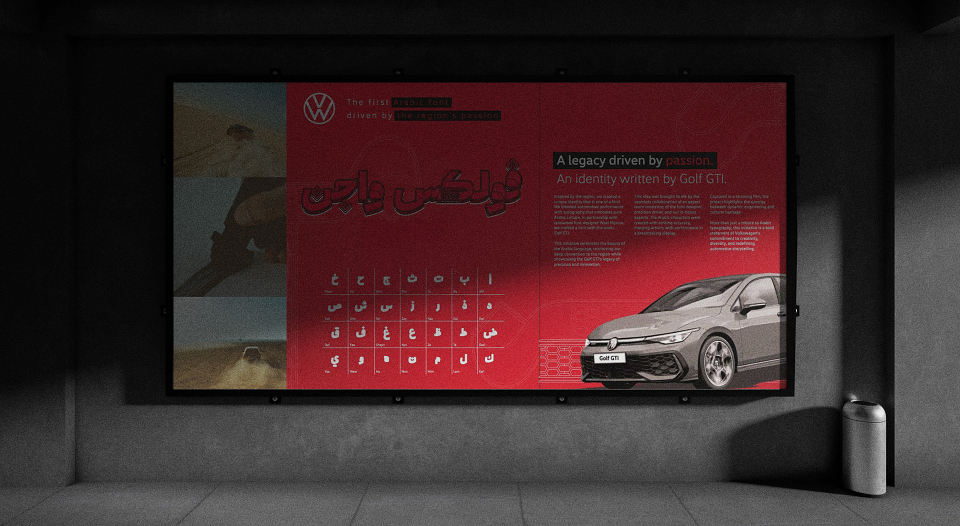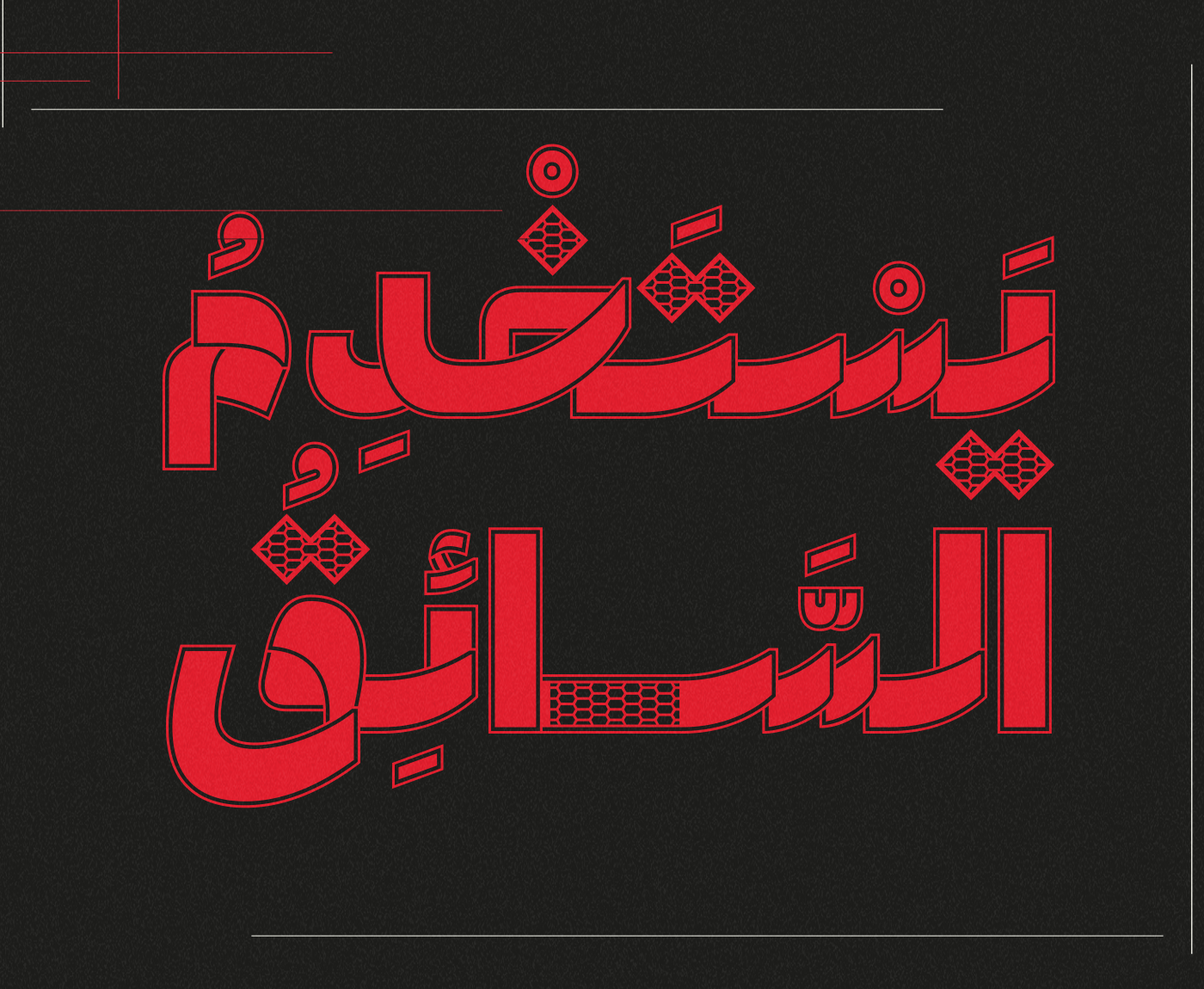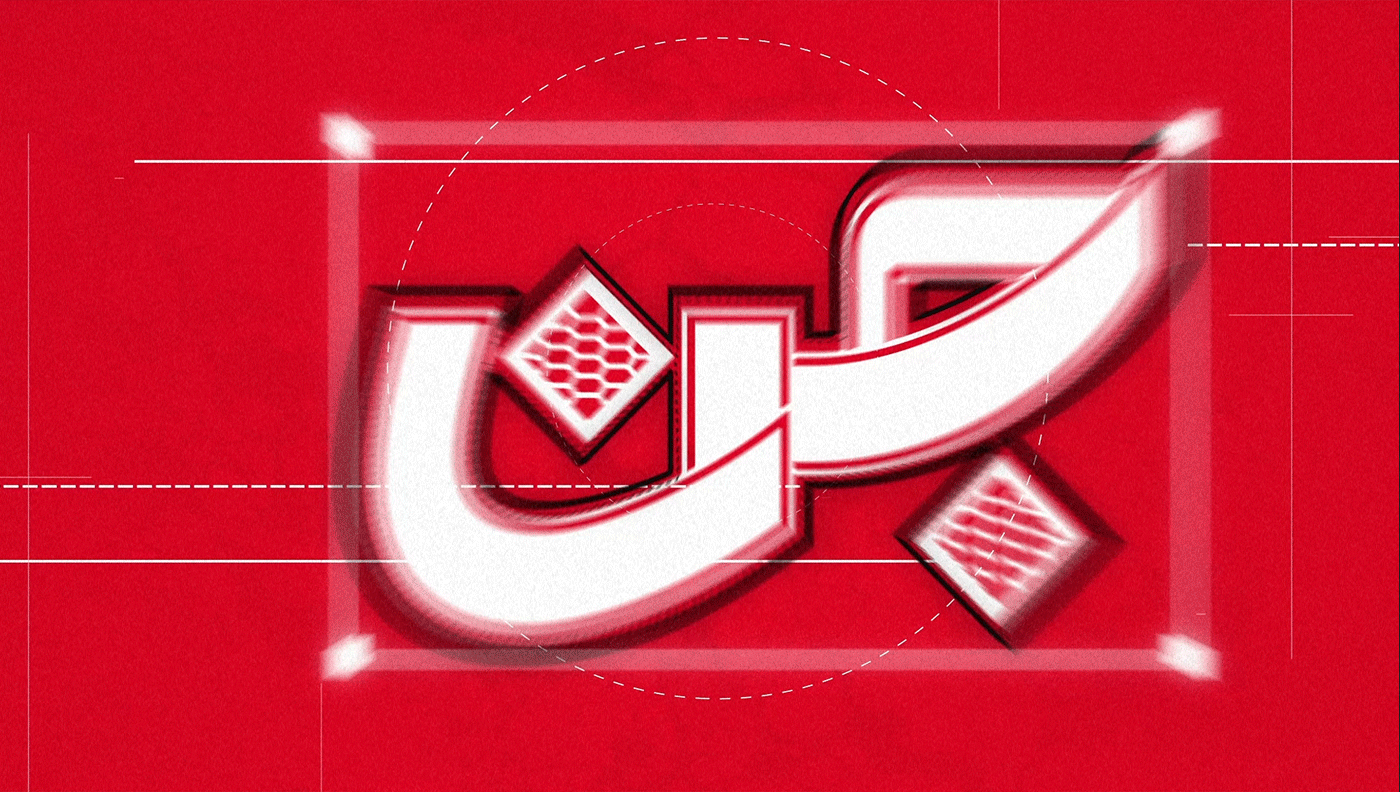
To celebrate the legacy of the region's Golf GTI community, we created an identity unlike any other-an Arabic font crafted by the Golf GTI itself.
Blending innovation, culture, and performance, a team of experts brought this vision to life. Pushing the Golf GTI to its limits, they used its precise movements to shape the Arabic letters. This fusion of art and engineering exemplifies Volkswagen's commitment to cultural diversity and automotive excellence.